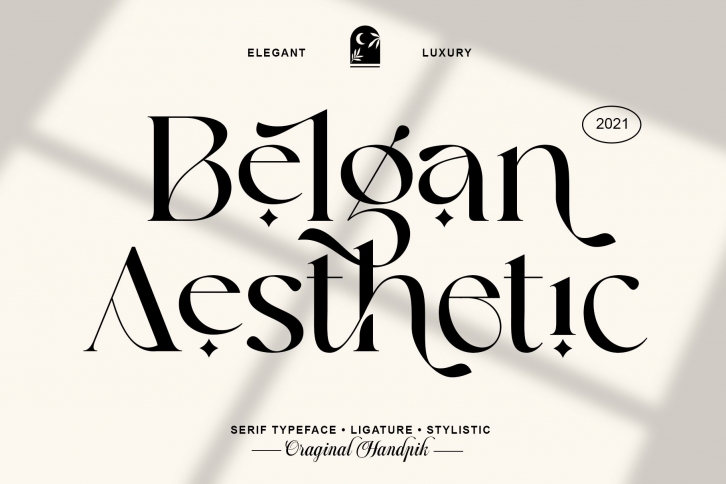
Belgan Aesthetic is a trendy and unique font with an authentic style. It was designed by handpik and it's a great choice for creative people who need such a font. It was released on January 11, 2022 and the file size is 20.18 MB. Belgan Aesthetic will add an organic vibe to any design idea!